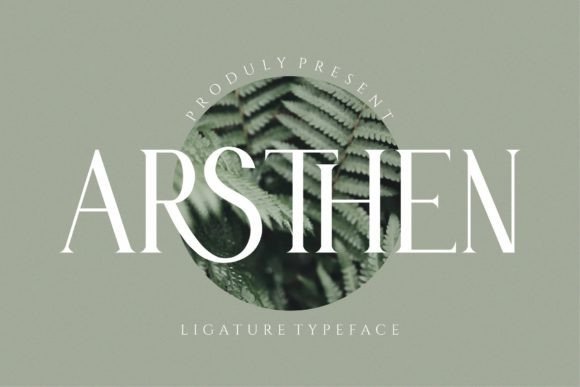
Arsthen Font: A Sophisticated Serif Font for Fashion-Forward Designs
Journey into the world of Arsthen, a classy and elegant serif font that exudes sophistication and style. Its graceful curves and sharp edges create a timeless aesthetic that elevates any design, leaving a lasting impression on your audience. Whether you're a fashion designer, a creative entrepreneur, or a design enthusiast, Arsthen is the perfect font to elevate your designs to new heights.
With its timeless appeal, Arsthen is an ideal choice for branding and logo design. Imagine your fashion label adorned with the bold and eye-catching lettering of Arsthen, instantly capturing the attention of potential customers and leaving a lasting impression. Its elegant curves add a touch of luxury and sophistication to your designs, making them stand out in a crowded market.
Arsthen's versatility extends beyond logos. Its refined appearance lends itself beautifully to editorial designs, where its elegant characters add a touch of class to articles, magazines, and brochures. Its crisp and clean lines make it easy to read, ensuring that your message is conveyed with clarity and style.
Step into the world of social media with Arsthen and captivate your audience with eye-catching posts that demand attention. This font's inherent charm brings a touch of sophistication to your social media presence, attracting followers and generating engagement. Whether you're promoting your fashion line, showcasing your latest designs, or sharing your creative journey, Arsthen adds a touch of elegance and professionalism to every post.
Arsthen is more than just a font; it's a creative tool that empowers you to express your unique style. Its diverse range of applications makes it the perfect choice for labels, packaging, and any project that demands a touch of sophistication. With Arsthen, your designs will exude an air of luxury and refinement, leaving a lasting impression on all who encounter them.